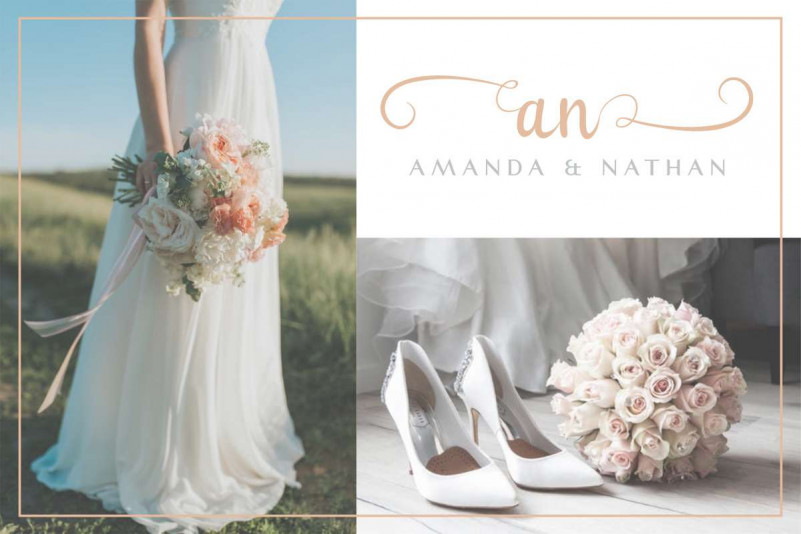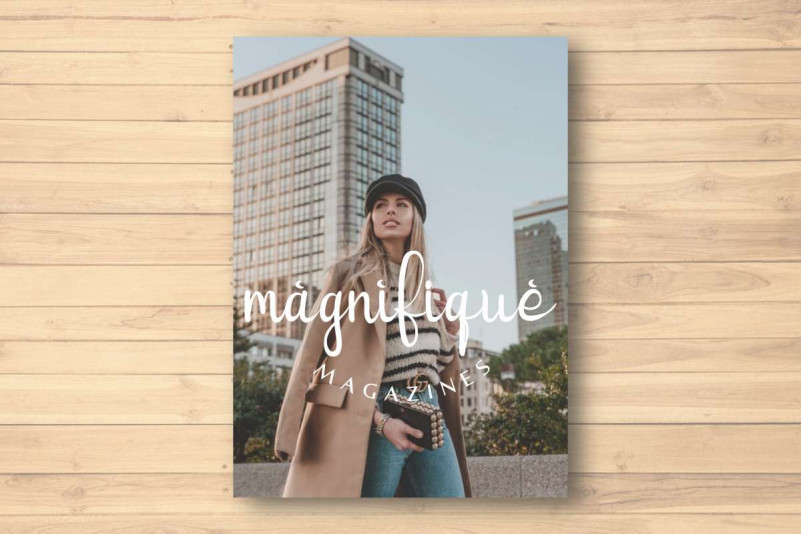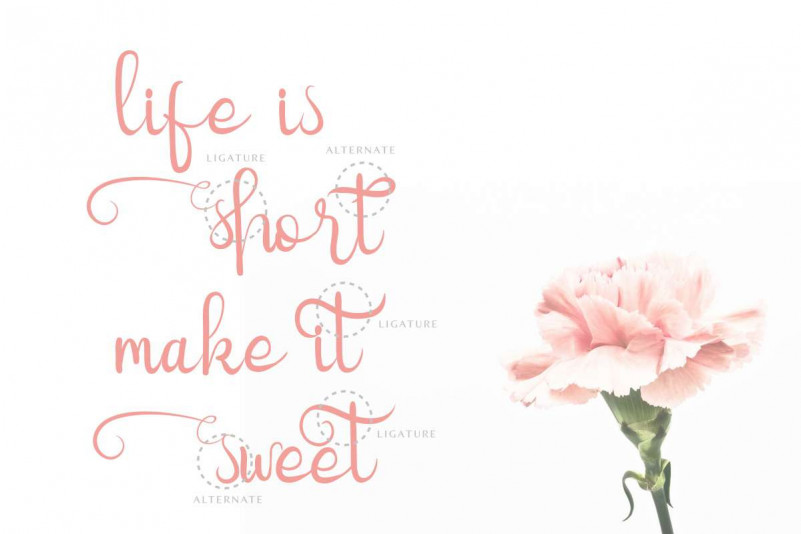
Quinnesha Script Font
Quinnesha Script Font has many alternate glyphs so you can explore further more. This font will suits many projects categories : Logo type, flyer, stationery, business card, signage, flyer, brochure etc. With your creativity, there’s no limit using with this font.